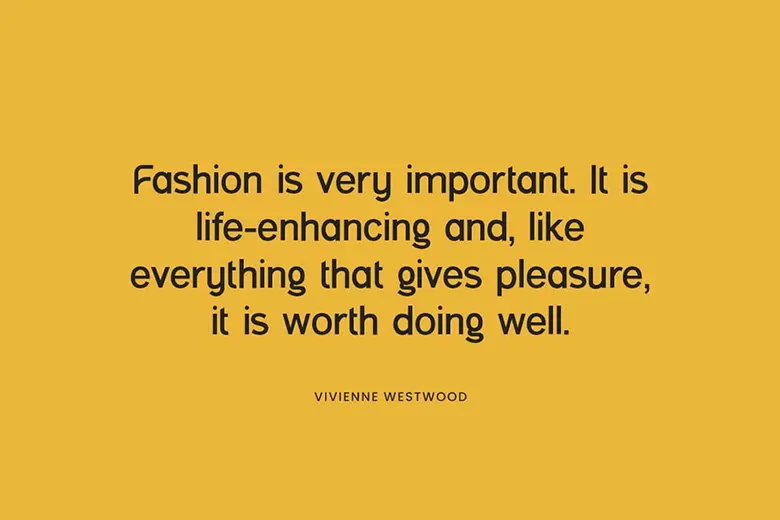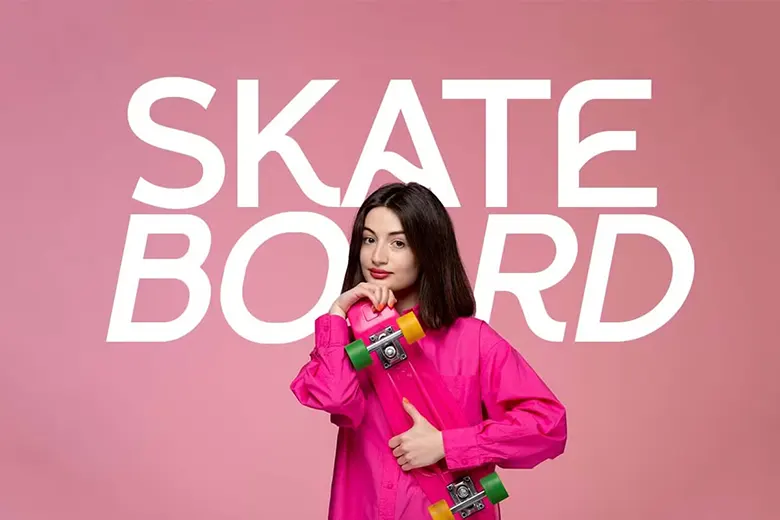
Say hello to Minks Urban Sans Serif Family Font, a fresh, trendy pick for all kinds of cool projects! It’s got a smooth, fancy look that makes everything pop. Folks use it to jazz up signatures, wedding invites, logos, and snappy quotes. Businesses slap it on magazine covers, website banners, and brand labels too.
Creators love how it blends a bold vibe with a gentle touch. Perfect for fashion designs or school posters, it works for almost anything. Kids can even try it for fun crafts or signs. Give your ideas a stylish boost with this awesome font!
Minks Urban Sans Serif Font
| Designer | UICreative |